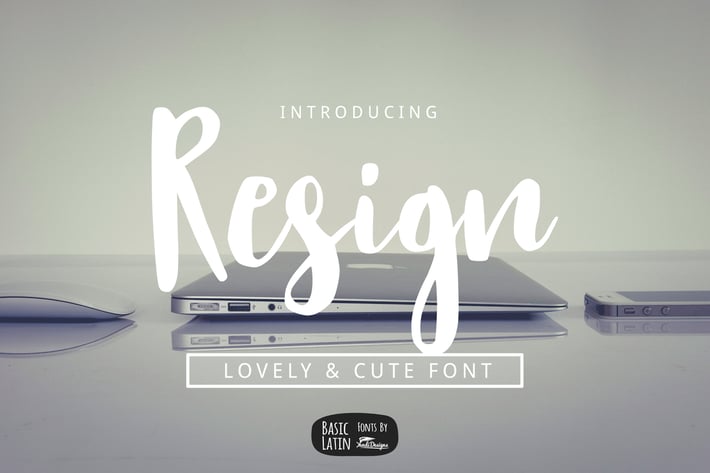
Resign Modern Brush Font
Resign is lovely ,cute, simple, modern, artistic multipurpose brush font , suitable for many project children book, quotes, logo , heading , title etc.